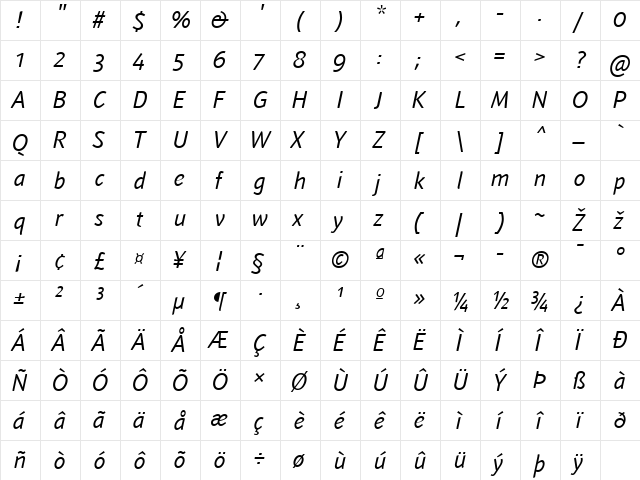
Textra LT Book Italic Font Preview
Textra LT Book Italic
Textra LT Book Italic Font Details
| Foundry | Linotype Library GmbH |
| Designer | Jochen Schuss |
Design Context for Textra LT Book Typeface
Textra LT Book takes a measured approach to typography — its balanced proportions and neutral character make it a reliable workhorse for both digital and print work. The dynamic lean of this cut emphasises speed and emphasis in any layout. Its slender proportions lend an understated elegance to any composition.